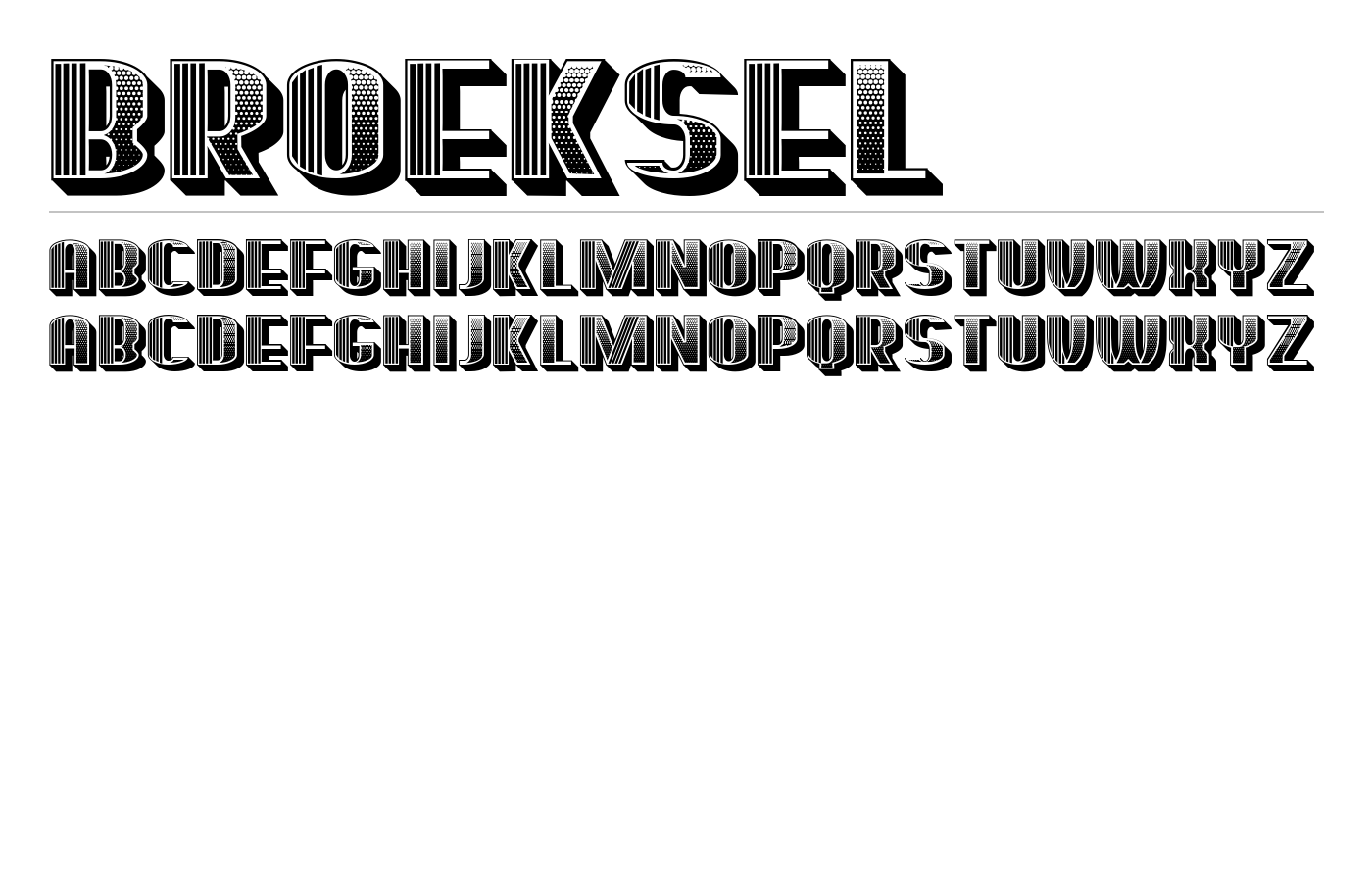
Broeksel is a bold, decorative sans serif display font characterized by its strong three-dimensional effect and intricate patterns of lines and dots within the letterforms. It exudes a vintage, playful vibe with its blocky shapes and shadowed depth, making it perfect for eye-catching headlines, posters, or branding that seeks a unique, retro flair. This font works best in creative projects where a striking, bold statement is desired rather than for body text due to its ornamental complexity.
Broeksel Font
About Broeksel Font